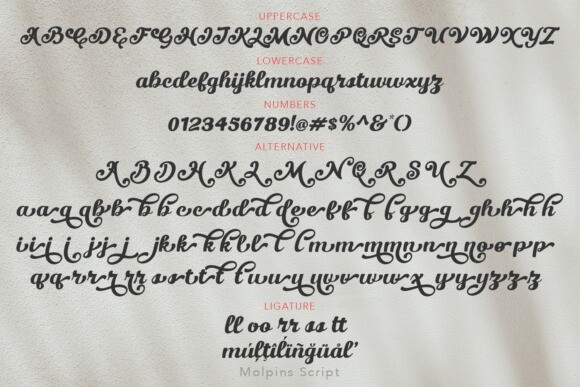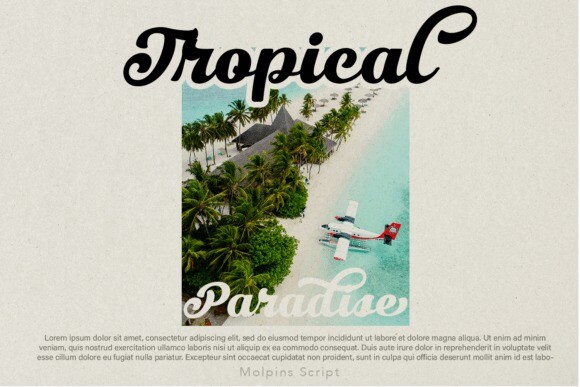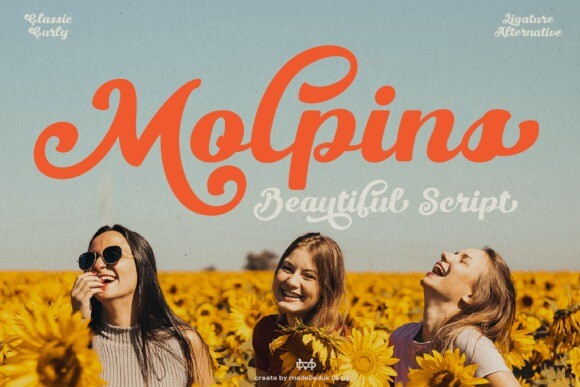
Molpins Font
Designer: madeDeduk
Molpins Font is a beautiful script font that comes with a curly style. This font is perfect for poster design, book covers, merchandise, fashion brands, advertising, magazines, album covers, wedding invitation and more.